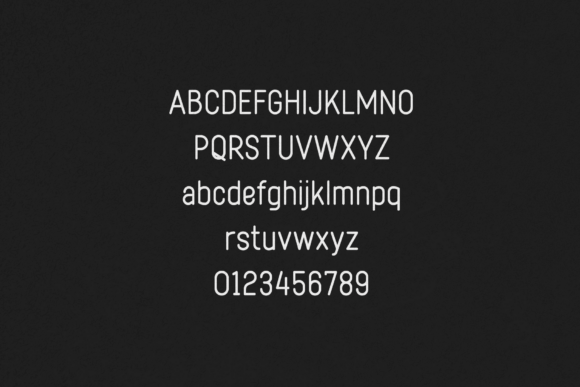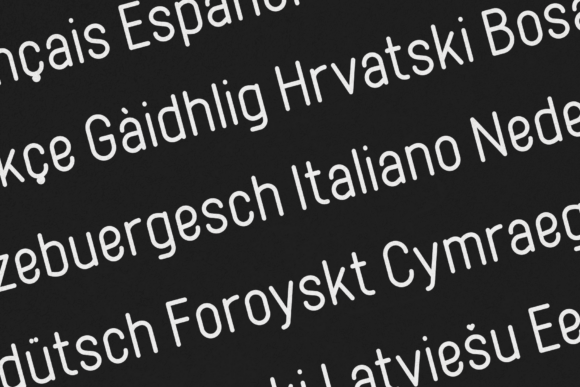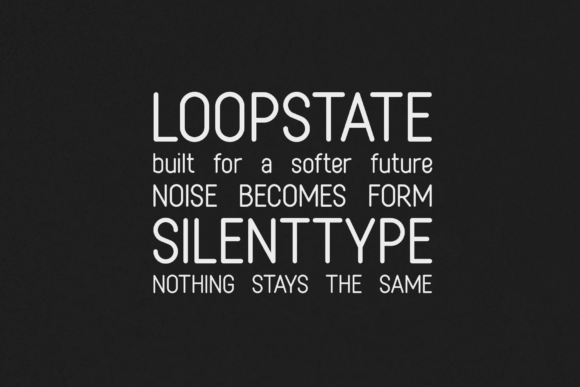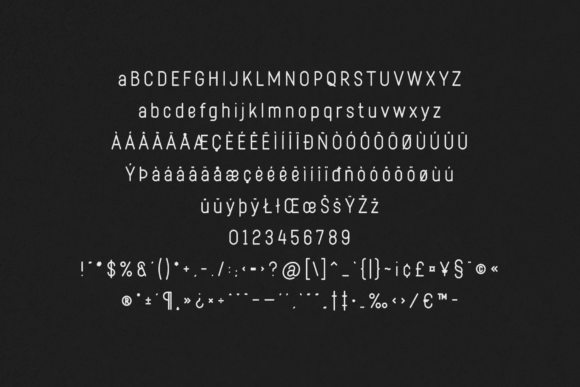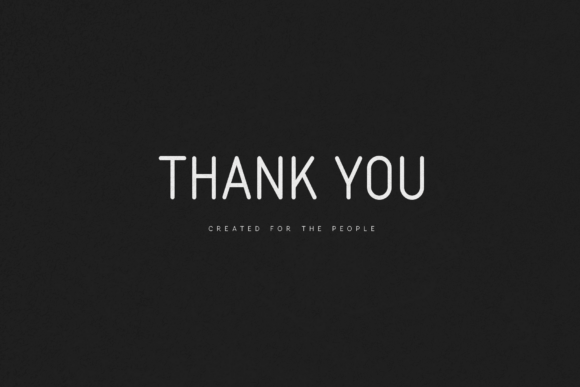
Discover the Azora Font: A Modern, Rounded Headline Typeface for Professional and Friendly Branding
In the world of typography, finding the perfect balance between professional structure and friendly approachability can be a daunting task. However, with the Azora font, a modern, rounded headline typeface, designers and crafters can achieve a harmonious blend of both. This versatile typeface is designed to provide clarity and impact, making it an excellent choice for various applications, from corporate branding to educational platforms.
The Unique Characteristics of Azora Font
The Azora typeface boasts clean, geometric forms with softly blunted terminals, giving it a distinctive “human” touch that traditional sharp-edged sans-serifs often lack. This unique feature allows Azora to convey a sense of friendliness and approachability while maintaining a professional edge. The font’s balanced proportions and friendly curves make it an ideal fit for brands in the wellness, childcare, or home-tech sectors.
Optimized for Readability
The “Headline Edition” of the Azora typeface is specifically optimized for readability across all screen sizes, ensuring that your message remains accessible and clear. This is particularly crucial in today’s digital age, where users are constantly bombarded with information. With Azora, designers can create visually appealing and easy-to-read content that engages audiences and communicates effectively.
Versatility in Pairing and Design
One of the Azora font’s greatest strengths is its versatility in pairing and design. For a sophisticated, modern-meets-classic look, pair Azora with a high-contrast serif font. This combination creates a visually appealing contrast that adds depth and elegance to any design. Alternatively, use Azora on its own for a clean, minimalist aesthetic that lets the content shine.
Ideal Applications for Azora Font
The Azora font is suitable for a wide range of applications, including:
- Corporate branding: Azora’s professional and modern design makes it an excellent choice for companies looking to establish a strong brand identity.
- Tech startups: The font’s clean and geometric forms convey innovation and forward-thinking, making it perfect for tech startups.
- Educational platforms: Azora’s friendly and approachable design creates a welcoming atmosphere, ideal for educational platforms and institutions.
- Wellness and childcare: The font’s balanced proportions and friendly curves make it a great fit for brands in the wellness, childcare, or home-tech sectors.
Designing with Azora Font
When designing with Azora, consider the following tips:
- Use Azora for headlines and titles to create a strong visual impact.
- Experiment with different font sizes and colors to add depth and hierarchy to your design.
- Pair Azora with other fonts to create a unique and visually appealing combination.
- Don’t be afraid to get creative and try new things – Azora’s versatility makes it an excellent choice for designers looking to push boundaries.
In conclusion, the Azora font is a modern, rounded headline typeface that offers a perfect balance between professional structure and friendly approachability. Its unique characteristics, optimized readability, and versatility in pairing and design make it an excellent choice for designers and crafters looking to create visually appealing and effective branding. Whether you’re designing a website header, a professional presentation, or a newsletter, Azora is a great option to consider.